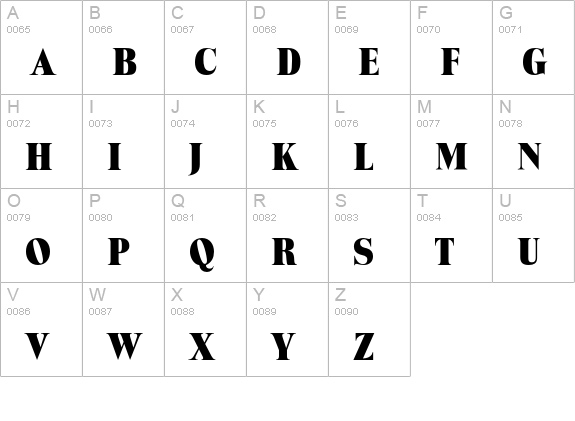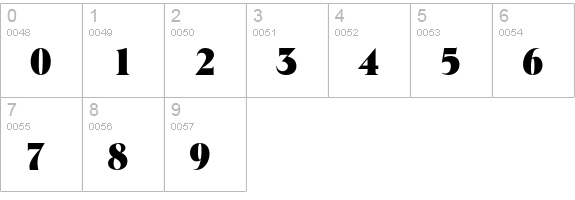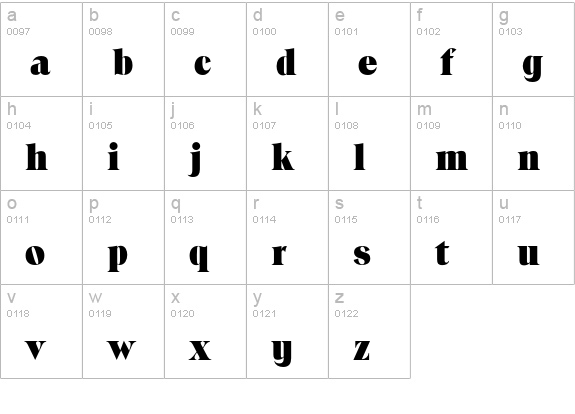
Toledo-ExtBld is a stunning and versatile font that effortlessly combines elegance with a touch of modernity. With its extended bold design, it commands attention and adds a bold statement to any project. Whether you're designing a poster, creating a logo, or crafting a captivating heading, Toledo-ExtBld will make your text stand out. Its clean and bold letterforms ensure excellent legibility, even at smaller sizes, while its elongated characters add a unique and eye-catching flair. This font is perfect for those seeking to add a touch of sophistication and professionalism to their designs. Its versatility allows it to adapt seamlessly to various design styles, making it suitable for both print and digital projects. From branding and packaging to editorial design and social media graphics, Toledo-ExtBld will elevate your work to new heights. And the best part? Toledo-ExtBld is available for free! You can easily download this remarkable font from FontsMarket.com, a trusted source for high-quality fonts. So why wait? Enhance your design projects with Toledo-ExtBld and make a lasting impression today.